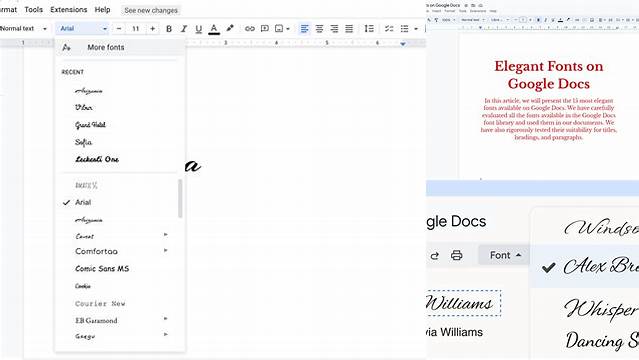
Google Docs Fonts: A Guide To Pretty Typography
Introduction: Unleashing the Power of Typography in Google Docs
Hey guys! Ever feel like your Google Docs are a little... blah? Like, the standard fonts just aren't cutting it when you want to make your document pop? Well, you're in the right place! Today, we're diving headfirst into the awesome world of pretty fonts on Google Docs. We'll explore how to ditch those boring defaults and inject some serious personality into your documents, making them more visually appealing and engaging. Trust me, choosing the right font can be a game-changer, whether you're crafting a professional report, a creative story, or a fun-filled newsletter. Let's face it, the right typography can make a world of difference in how your message is received, and it can even boost your document's readability. This guide is your ultimate companion to mastering Google Docs fonts, so get ready to transform your documents from drab to fab!
Google Docs offers a vast library of fonts. With a little know-how, you can unlock a treasure trove of options to help you unleash your creativity and make your documents truly stand out. We'll cover everything from finding and installing cool fonts to using them effectively to achieve the desired impact. So, let's get started, shall we? No more settling for the mundane, and it's time to level up your document game and make your words shine. Typography is a powerful tool, and we are going to learn how to wield it! Let’s make our documents speak volumes and do so with style.
This is an important matter because typography has a significant impact on the overall visual appeal and readability of any written material. A well-chosen font can instantly grab your audience's attention, conveying a specific mood or tone, and setting the right vibe for your content. It's not just about aesthetics, though; the right font can make your text more accessible and easier to consume. In contrast, a poorly chosen font can be a major distraction, hindering comprehension and potentially turning your readers away. That is why knowing how to customize Google Docs fonts is a valuable skill for students, professionals, and anyone who wants to create stunning documents.
Accessing the Font Menu: Your Gateway to Font Paradise
Alright, so, where do we actually find these amazing fonts in Google Docs? Let's get down to the nitty-gritty! First, open up your Google Doc. Once you're in, look up at the top of the screen. You'll see a menu bar with various options, including "File," "Edit," "View," and so on. The magic happens in the font menu, which is usually right there in the toolbar. It usually displays the current font and size of your text. Click on that font name. It will likely say something like "Arial" or "Times New Roman" as the default. That click is your portal to the world of awesome fonts!
Once you click on the font name, a dropdown menu will appear, showing you the fonts currently available. This is your starting point, but don't worry if the selection seems a little limited at first. That's where the real fun begins! At the very top of this dropdown menu, or often towards the bottom, you'll find the option to see "More fonts..." or "Add fonts..." depending on the version of Google Docs you're using. This is your gateway to expanding your font library to include a much broader selection. Clicking on this option opens up a new window with an even wider variety of fonts. It is here where you will find fonts that you never even knew existed! It's like a candy store for typography enthusiasts!
So, whether you are a seasoned Google Docs user or a newbie, finding the font menu is a simple but essential step. Familiarize yourself with the location and you are on your way to unlocking a world of design possibilities. Now that you know how to get to the font menu, let's move on to the next exciting step: adding new fonts to your Google Docs arsenal.
Adding Custom Fonts: Expanding Your Typography Horizons
Now, this is where things get really interesting! The default font options in Google Docs are a good starting point, but to truly make your documents shine, you'll want to explore custom fonts. And the good news is, adding custom fonts to Google Docs is incredibly easy. Once you've clicked on the "More fonts..." option in the font menu (as we discussed earlier), a new window or panel will pop up, showing you a preview of available fonts and the way to install these fonts.
The most important thing here is the font library. It is a treasure trove of options! You can scroll through the list of available fonts, previewing them and seeing how they might look in your document. Google Docs generally sorts these fonts, and you can filter fonts by script, such as Latin, Greek, Cyrillic, and more. Additionally, you can filter by font type, like Serif, Sans Serif, Handwriting, Monospace, and Display, making it easy to find the perfect fit for your project. To add a font to your Google Docs library, simply click the plus sign (+) next to it. The font will be added to your font menu and will become available for use in your documents. You can add as many fonts as you want. There's no limit. So go crazy, and explore a wide variety of styles and designs to find the ones that best suit your needs. This allows you to experiment with various fonts and find those that resonate with your brand or personal style.
Adding custom fonts opens up a world of creative possibilities. It allows you to match the style and tone of your document. Once you've added your desired fonts, they'll be available in the font dropdown menu. You can easily switch between fonts to find the ideal look for your document. So, embrace the power of custom fonts and transform your Google Docs from ordinary to extraordinary! Don’t be afraid to experiment and see how each font can alter your message.
Font Combinations: The Art of Pairing Fonts
Okay, you've got some cool fonts now. But how do you use them effectively? This is where font combinations come in. Combining fonts is a skill that takes practice, but it can dramatically improve your document's appearance and readability. The goal is to create a harmonious visual balance, so let's dive into a few essential rules and best practices.
First and foremost, keep it simple. Don't go overboard with too many fonts in a single document. Two or three different fonts are usually enough. Any more than that, and your document might start to look cluttered and unprofessional. Try using a headline font for titles and headings and a body font for the main text. Ensure these fonts complement each other. Think about contrast and visual harmony. For example, pairing a bold, attention-grabbing display font for headings with a clean, easy-to-read sans-serif font for the body text can be a highly effective combination. On the other hand, don't pair fonts that are too similar. This can lead to a confusing look, where the differences are barely noticeable, and the document lacks a clear visual structure.
The world of typography is vast and exciting. There is always something new to learn and discover, from the basics of font selection to the intricacies of pairing fonts. So, keep exploring, experimenting, and having fun! Remember that every project is an opportunity to improve your skills and get better in your document design. Keep practicing with different font combinations, experiment with different font sizes, and test different font weights. With each document you create, you'll learn more about how to use typography to your advantage and make your documents stand out. Happy font-ing, everyone, and may your documents always look amazing!